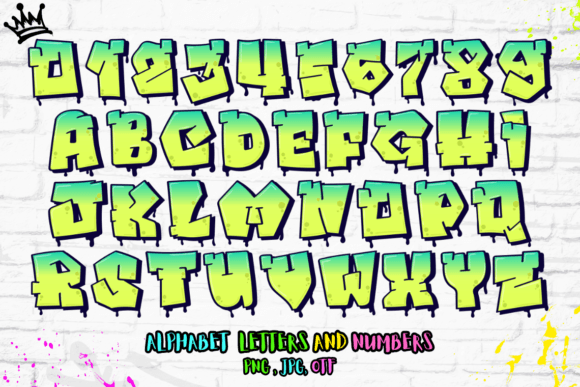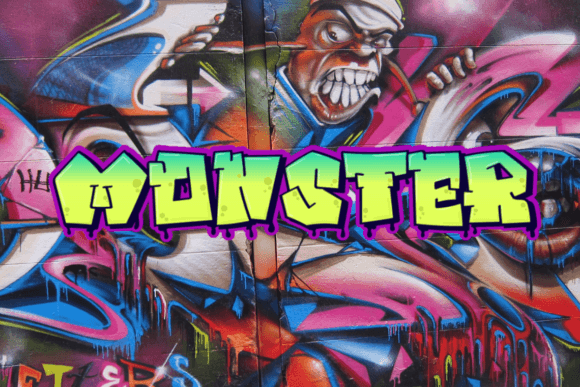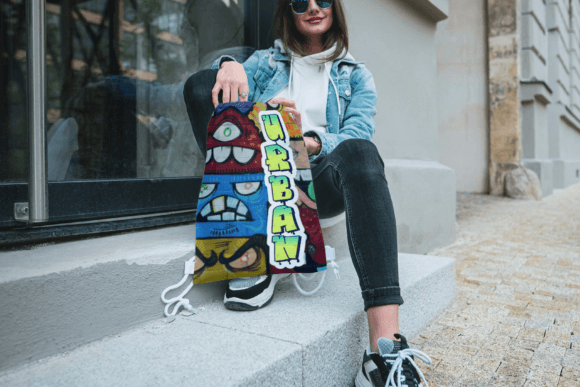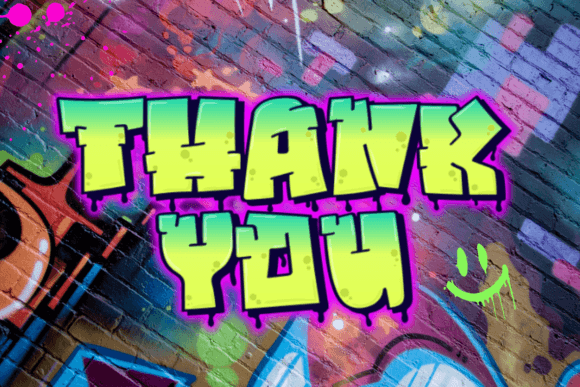
Introduction to Queen Street Graffiti Font
Introducing Queen Street Graffiti Color font.
Crafted with a handwritten touch and adorned with captivating alphabet street graphics, this font is your ultimate companion for adding urban flair to your designs Whether youโre seeking inspiration, celebrating special moments, or diving into holiday festivities, Queen Street Graffiti Color font is here for you.